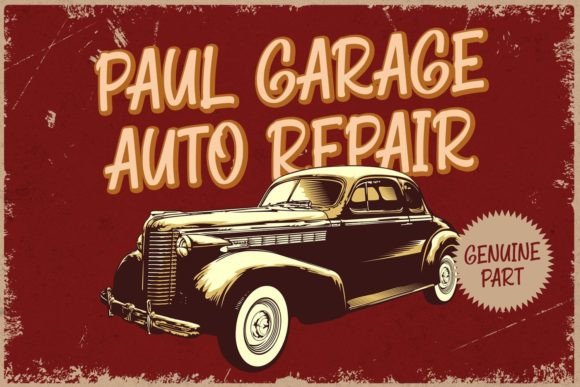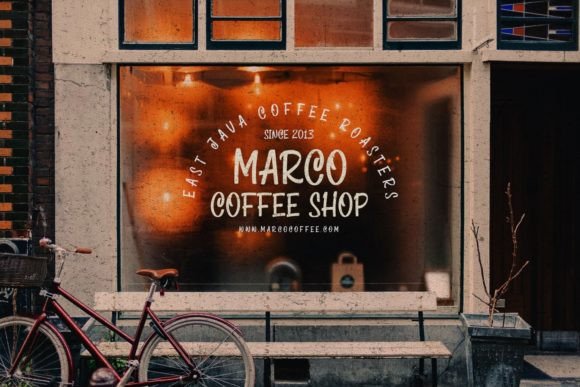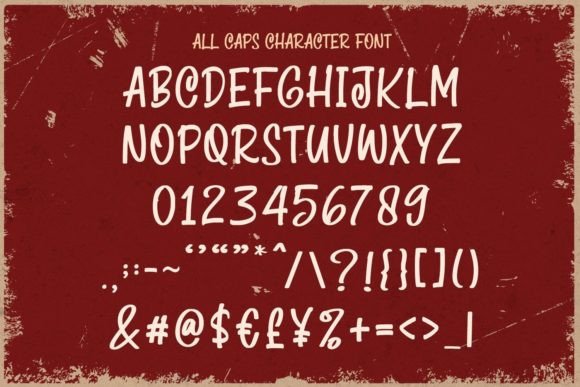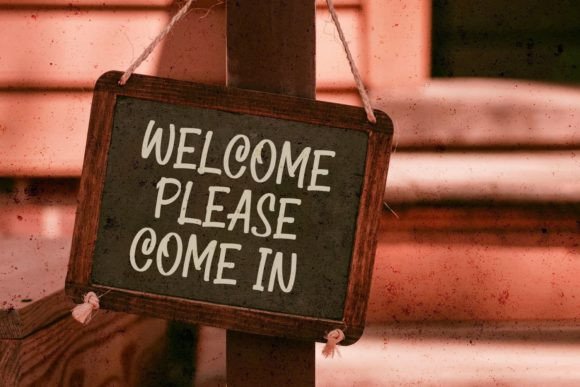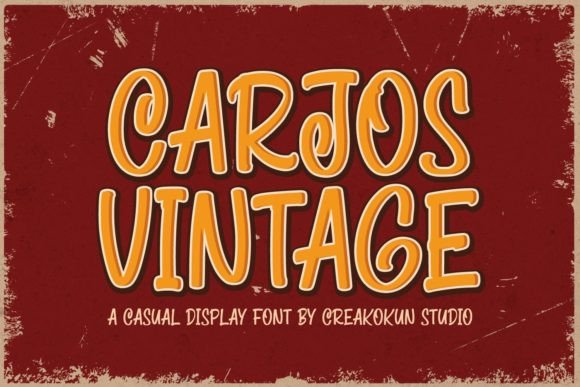
Introducing Carjos Vintage Font: Add a Touch of Playful Nostalgia to Your Designs
Are you looking for a font that can add a dash of vintage charm to your designs? Look no further than Carjos Vintage Font! This casual and flowing display font is perfect for designers and crafters who want to infuse their work with a playful, nostalgic feel. With its unique blend of classic and modern elements, Carjos Vintage Font is sure to make your designs stand out from the crowd.
The Characteristics of Carjos Vintage Font
Carjos Vintage Font is a display font that boasts a distinctive, hand-drawn look. Its casual and flowing design makes it perfect for use in a variety of design projects, from posters and flyers to logos and branding materials. The font’s playful, nostalgic feel is reminiscent of classic designs from the 1950s and 60s, but with a modern twist that makes it feel fresh and contemporary.
What Makes Carjos Vintage Font So Special?
So, what sets Carjos Vintage Font apart from other fonts on the market? Here are just a few reasons why designers and crafters are falling in love with this amazing font:
- Unique aesthetic: Carjos Vintage Font has a one-of-a-kind look that’s sure to grab attention. Its blend of classic and modern elements creates a truly unique aesthetic that’s perfect for designers who want to stand out from the crowd.
- Playful nostalgia: This font has a playful, nostalgic feel that’s perfect for designers who want to evoke a sense of fun and whimsy in their work. Whether you’re creating a retro-style poster or a modern logo, Carjos Vintage Font is sure to add a touch of personality to your design.
- Versatility: Carjos Vintage Font is incredibly versatile, making it perfect for use in a wide range of design projects. From posters and flyers to logos and branding materials, this font can be used in any design project that requires a touch of vintage charm.
How to Use Carjos Vintage Font in Your Designs
Ready to add a touch of playful nostalgia to your designs? Here are a few tips for using Carjos Vintage Font in your work:
- Pair it with bold colors: Carjos Vintage Font looks amazing when paired with bold, bright colors. Try using it in combination with a bold color scheme to create a design that’s sure to grab attention.
- Use it for headlines: This font is perfect for use in headlines and titles, where its playful, nostalgic feel can really shine. Try using it to add a touch of personality to your blog posts, articles, and other written content.
- Experiment with different styles: Carjos Vintage Font comes in a range of styles, from regular to bold and italic. Experiment with different styles to find the one that works best for your design.
Why Designers and Crafters Love Carjos Vintage Font
Designers and crafters love Carjos Vintage Font for a variety of reasons. Here are just a few:
- High-quality design: Carjos Vintage Font is a high-quality font that’s been carefully designed to deliver a unique, vintage aesthetic. The font is crisp and clear, making it perfect for use in both print and digital designs.
Carjos Vintage Font is a must-have for designers and crafters who want to add a touch of playful nostalgia to their work. With its unique aesthetic, playful feel, and versatility, this font is perfect for use in a wide range of design projects. Whether you’re creating a retro-style poster or a modern logo, Carjos Vintage Font is sure to deliver a vintage charm that’s sure to impress. So why wait? Download Carjos Vintage Font today and start adding a special funky touch to your designs!